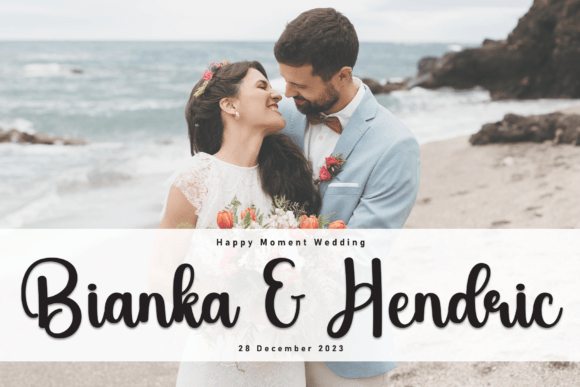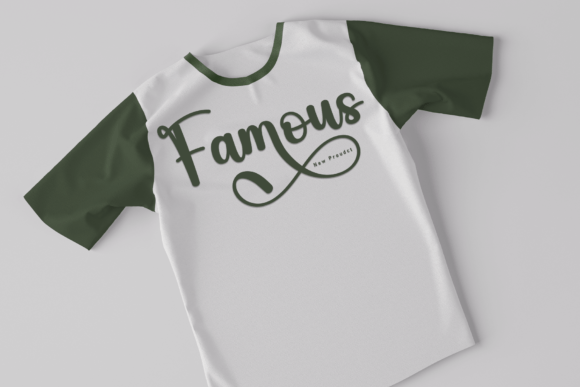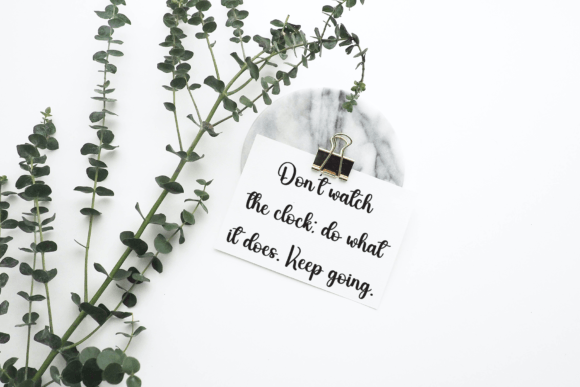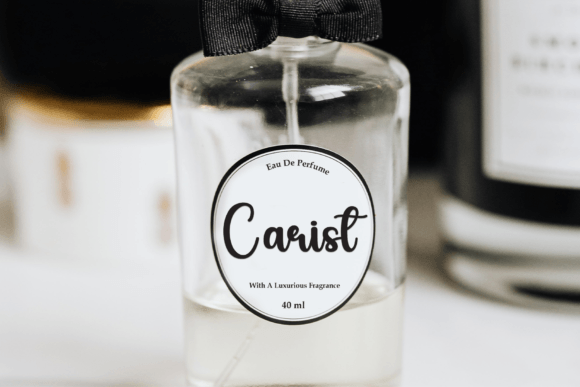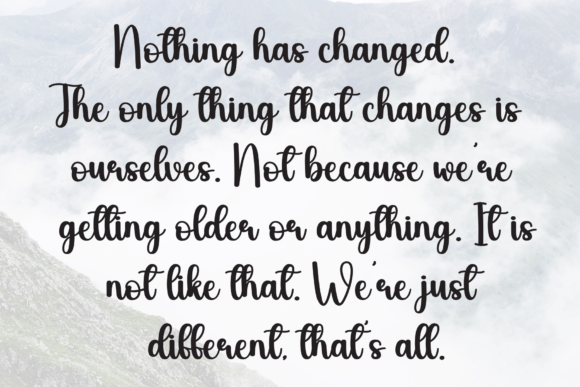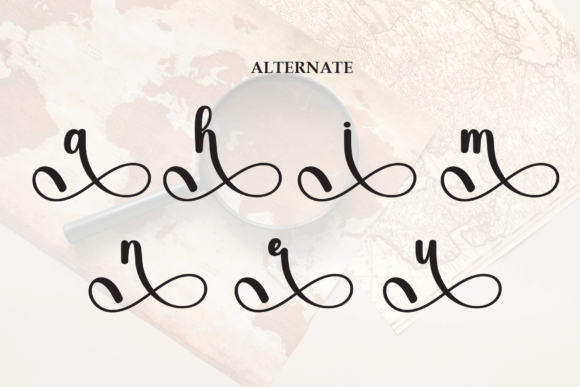
Discover the Charm of Finding Font: A Sweet Handwritten Display Font
Are you on the hunt for a font that adds a touch of whimsy and friendliness to your designs? Look no further than Finding Font, a delightful handwritten display font that’s perfect for creating eye-catching wedding invitations, cards, and other creative projects. In this article, we’ll dive into the world of Finding Font, exploring its features, uses, and benefits for designers and crafters.
What is Finding Font?
Finding Font is a sweet and friendly handwritten display font that’s designed to bring a smile to your face. Its cute and fun aesthetic makes it an ideal choice for designs that require a playful touch. Whether you’re creating wedding invitations, birthday cards, or social media graphics, Finding Font is sure to add a dash of personality to your work.
Key Features of Finding Font
- Handwritten style: Finding Font boasts a beautiful, handwritten style that’s reminiscent of a warm and friendly conversation.
- Cute and fun: This font is designed to be playful and eye-catching, making it perfect for designs that require a touch of whimsy.
- Display font: Finding Font is a display font, meaning it’s designed to make a statement and grab attention.
- Easy to read: Despite its playful nature, Finding Font is surprisingly easy to read, making it suitable for longer texts and paragraphs.
Uses for Finding Font
So, what can you use Finding Font for? The possibilities are endless! Here are a few ideas to get you started:
- Wedding invitations: Finding Font is perfect for creating beautiful, one-of-a-kind wedding invitations that set the tone for a special day.
- Cards and stationery: Add a touch of personality to your cards and stationery with Finding Font, making them truly special and memorable.
- Social media graphics: Use Finding Font to create eye-catching social media graphics that stand out from the crowd and showcase your brand’s personality.
- Signage and branding: Finding Font can also be used for signage and branding projects, adding a friendly and approachable touch to your business.